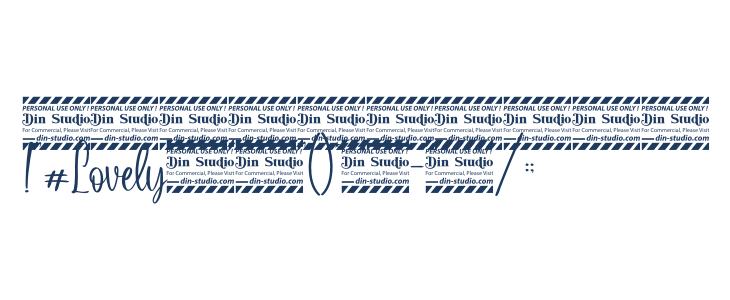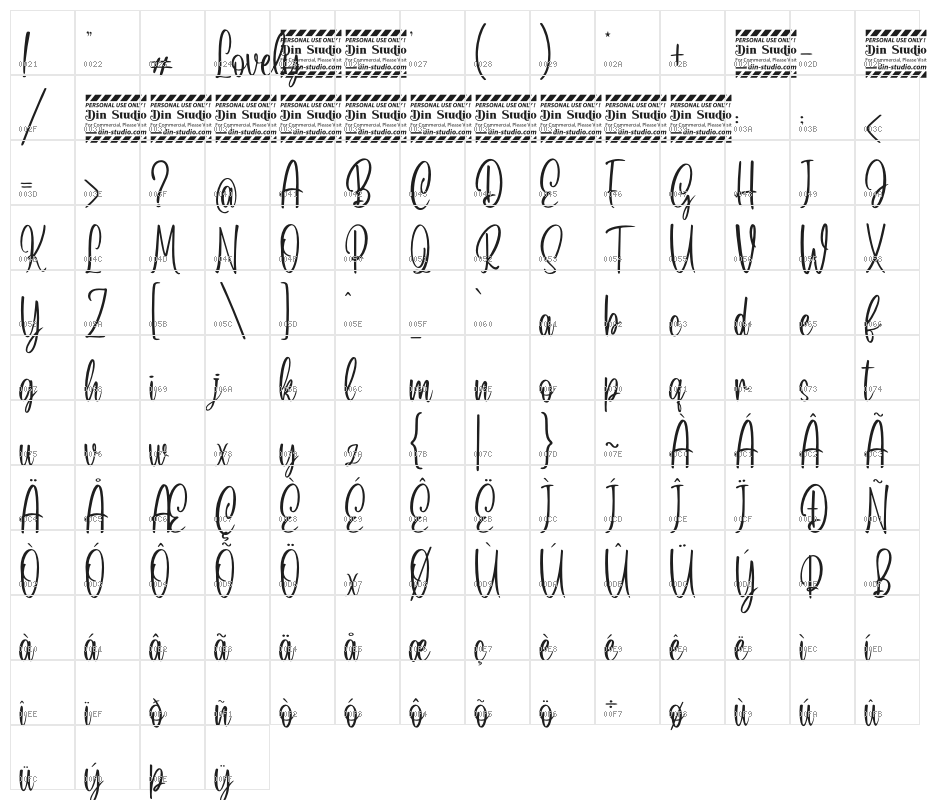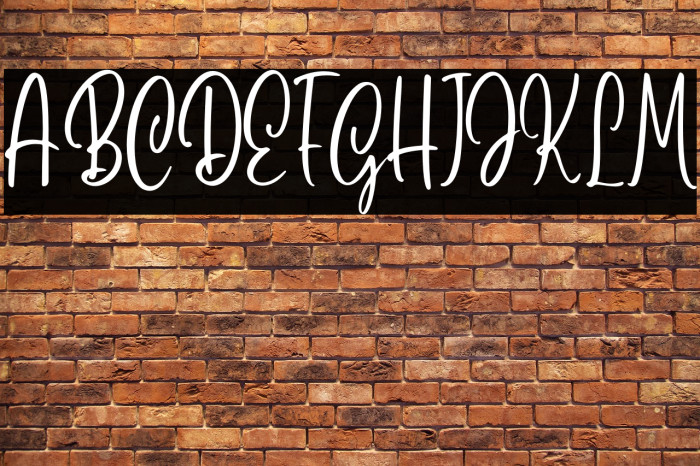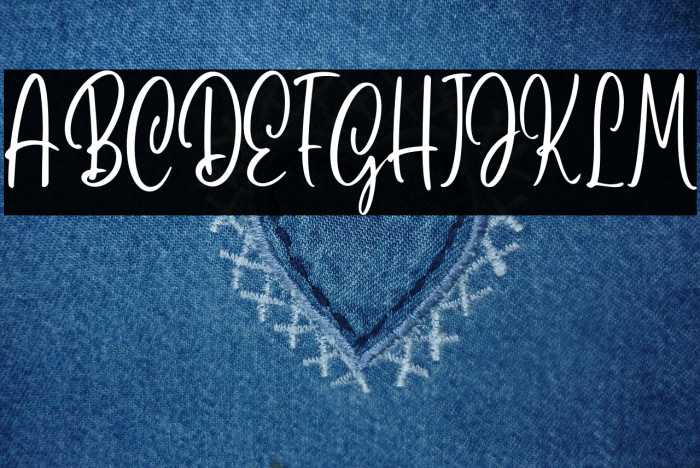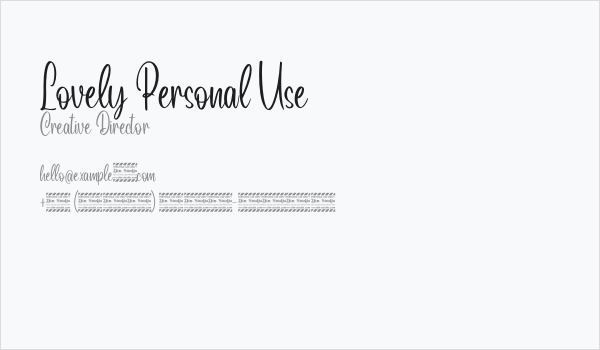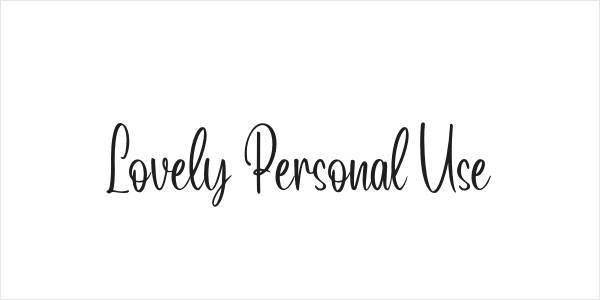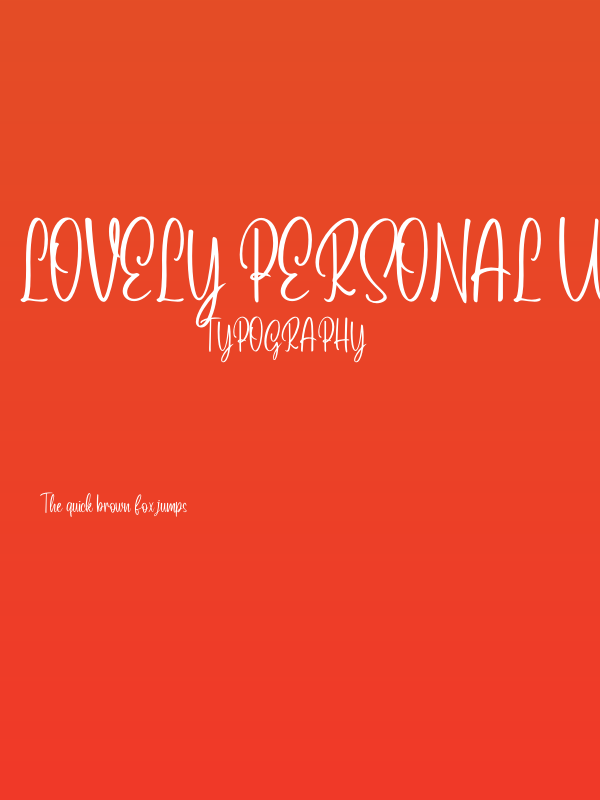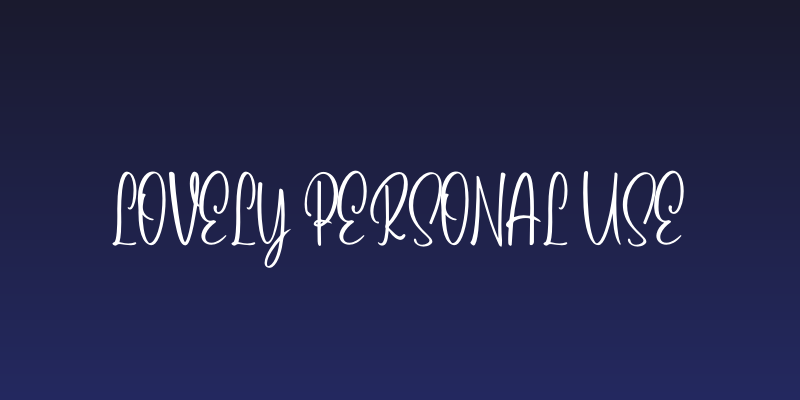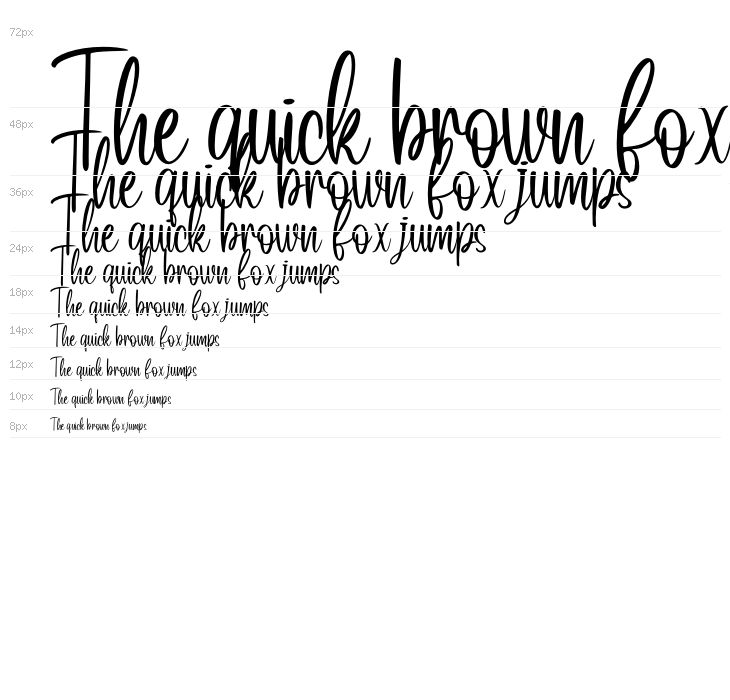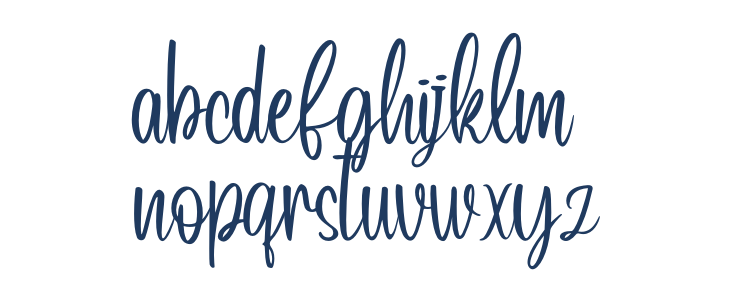
Lovely Personal Use Font
Lovely Personal Use Description
This font features a playful and elegant handwritten style with a smooth flow and a modern touch. The uppercase letters are tall and slightly narrow, with a whimsical flair that adds a sense of movement and personality. The lowercase letters are more rounded and connected, creating a cohesive and fluid appearance. The overall design is both casual and sophisticated, making it suitable for a variety of creative projects. The font includes a full set of uppercase and lowercase letters, numbers, and a selection of special characters, providing versatility for different design needs.
| Proposed Projects | Ideal for wedding invitations, greeting cards, branding, and social media graphics. |